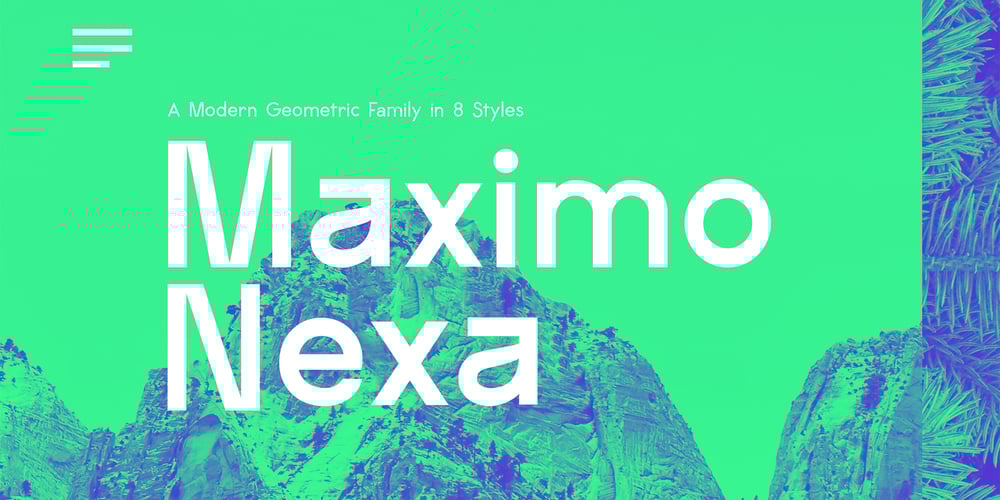
Maximo Nexa Font Family was designed by Kurt Harahap and published by Kaligra.co. Maximo Nexa contains 8 styles and family package options. Maximo Nexa is a dynamic, contemporary sans serif font family consisting of 8 meticulously designed fonts. With its clean lines and sporty geometry, Maximo Nexa offers a harmonious aesthetic that seamlessly blends into various design contexts. Whether you’re working on branding, editorial projects, signage, or larger applications, Maximo Nexa is your perfect companion.